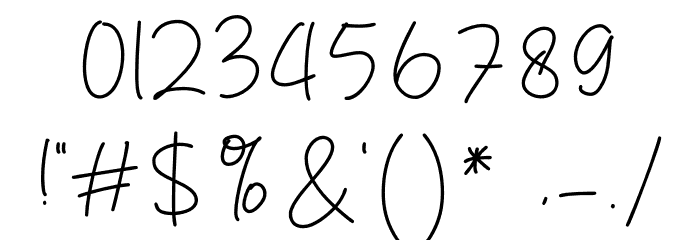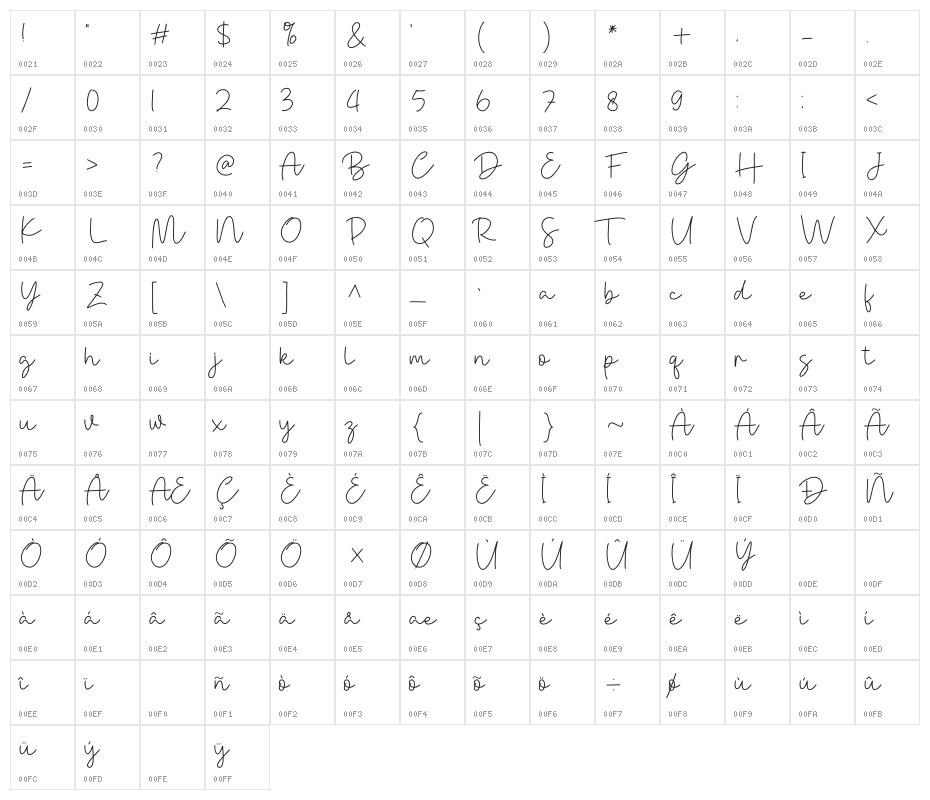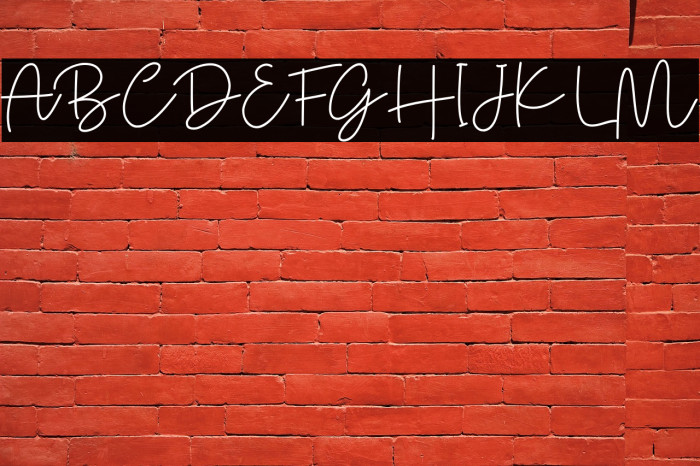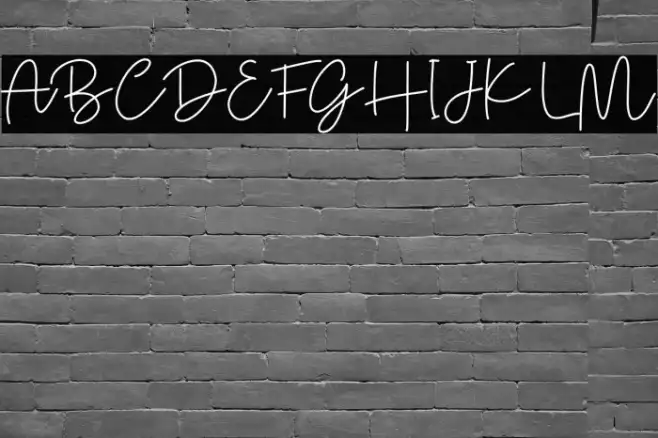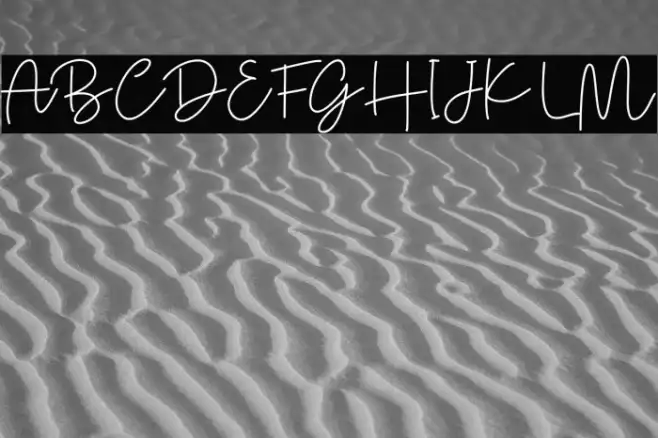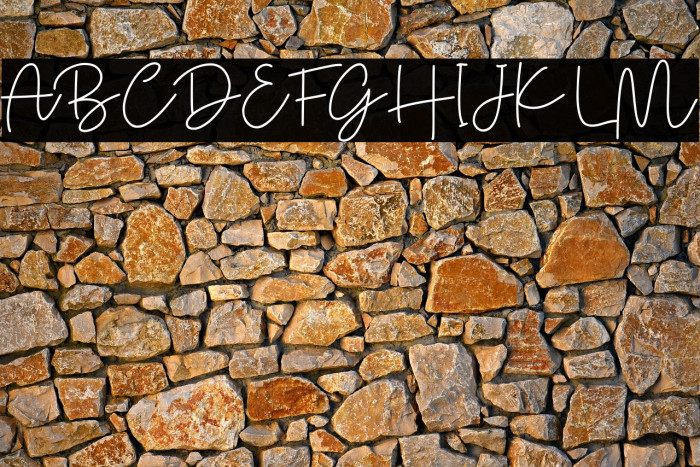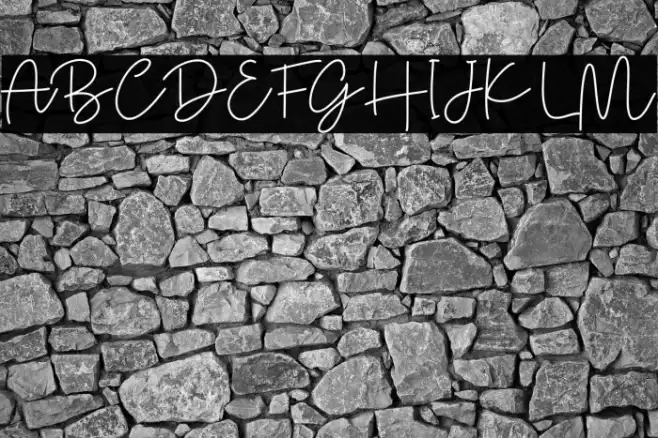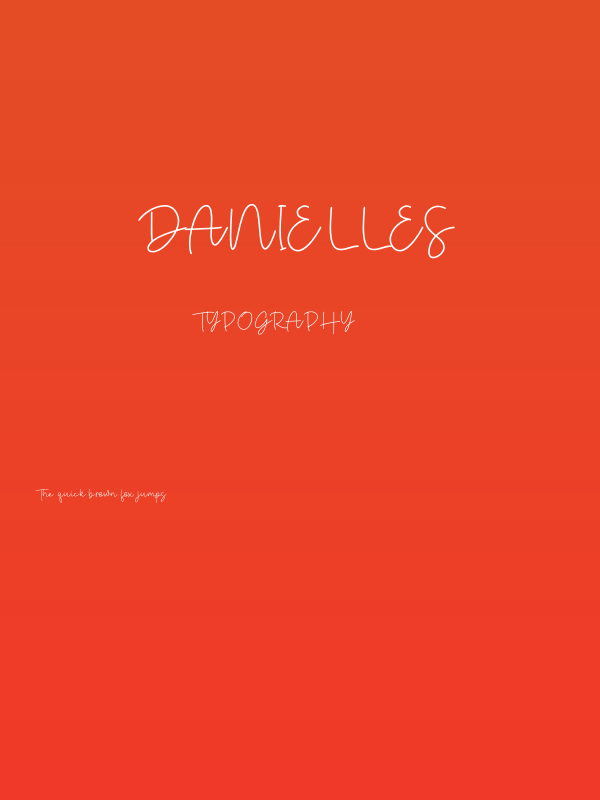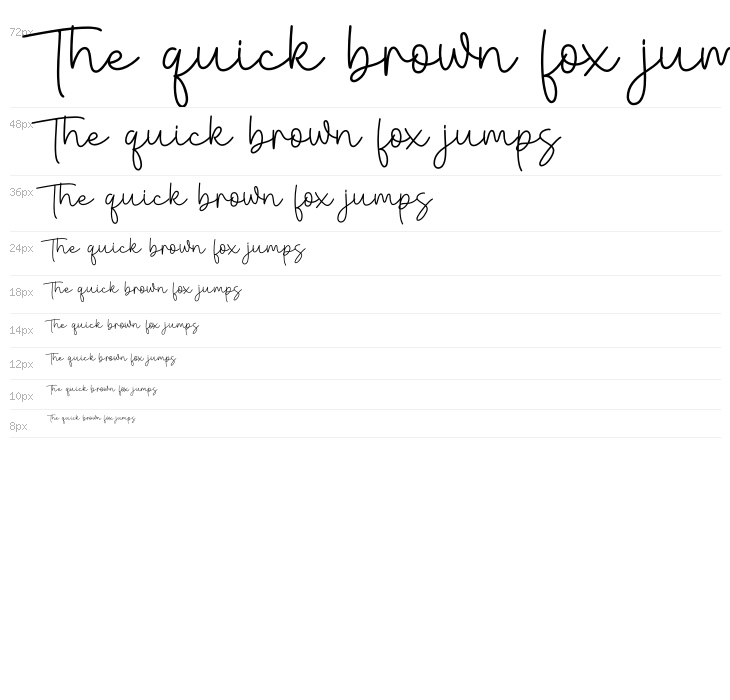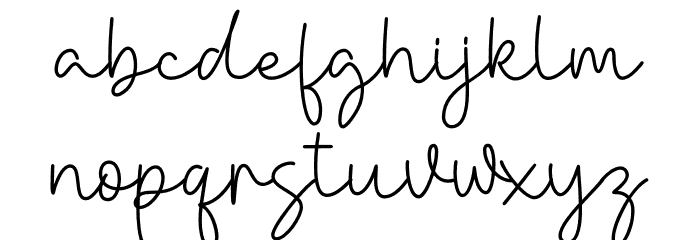
Danielles Font
Danielles Description
This font features a playful and casual handwritten style, characterized by its smooth, flowing lines and slightly irregular shapes that give it a personal touch. The letters are connected in a cursive manner, yet maintain a clear readability. Uppercase letters are slightly taller and more prominent, while lowercase letters are more rounded and compact. The numerals follow the same fluid style, ensuring consistency across the font. Special characters are creatively integrated, maintaining the overall whimsical aesthetic. This font exudes a friendly and approachable vibe, perfect for projects that require a personal or informal touch.